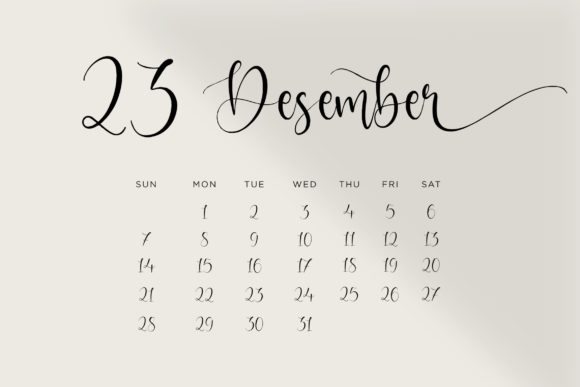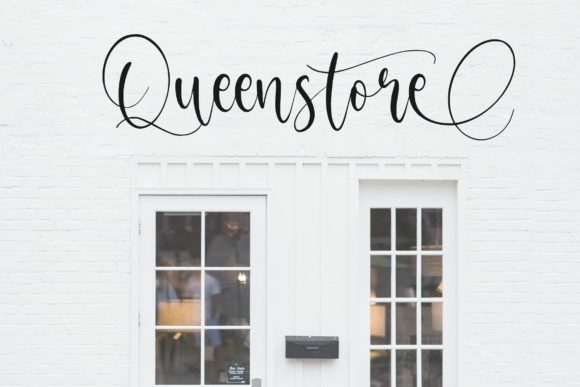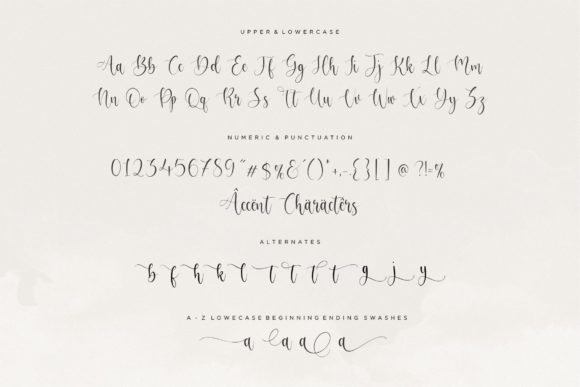
About Adrielle Font
Adrielle is a fashionable and distinct handwritten font. It looks beautiful on a variety of designs requiring a personalized style, such as wedding invitations, thank you cards, weddings, greeting cards, logos and so on. This font is PUA encoded which means you can access all of the glyphs and swashes with ease!